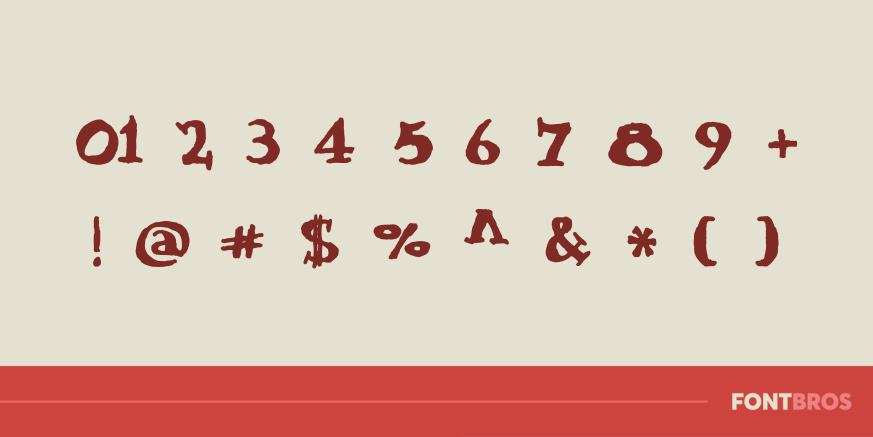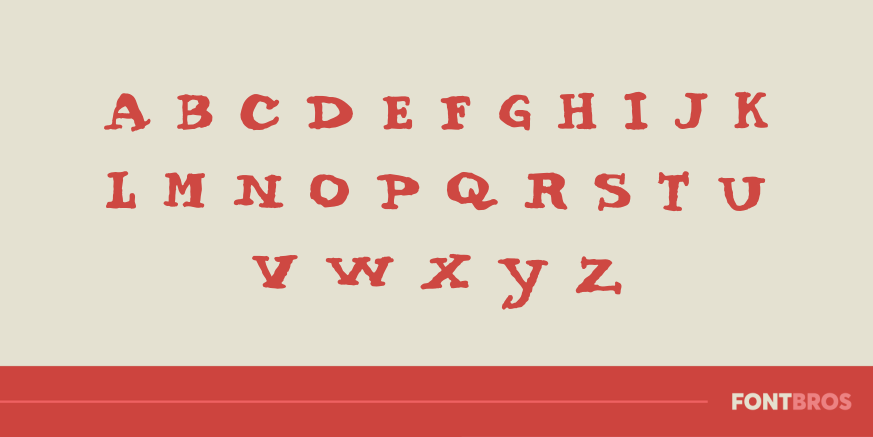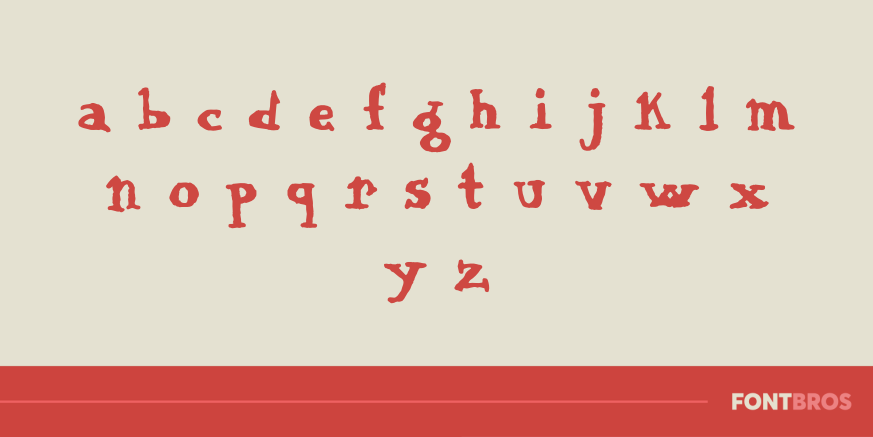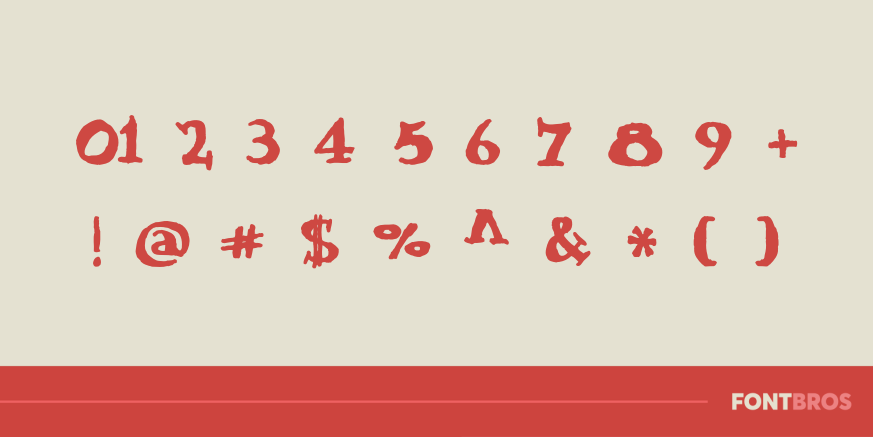
Anastasia
Font Family by Font Diner
She's a grand old wild western gal with an offbeat personality and gnawed on serifs! Nab this big hearted bouncy serif font for all your playful designs!